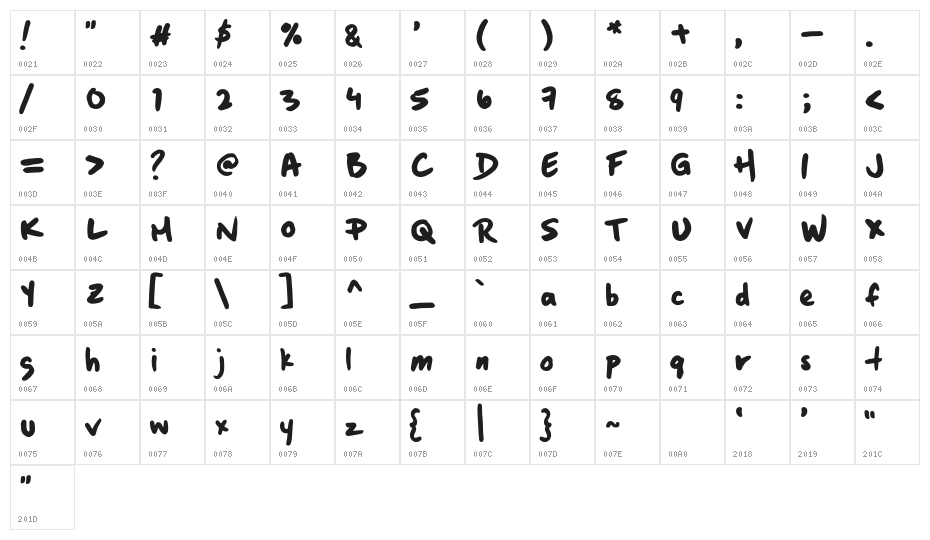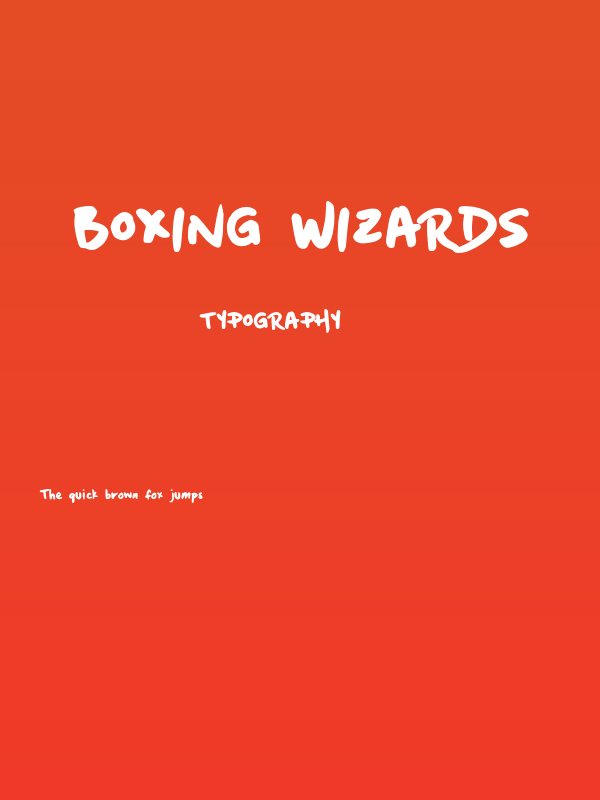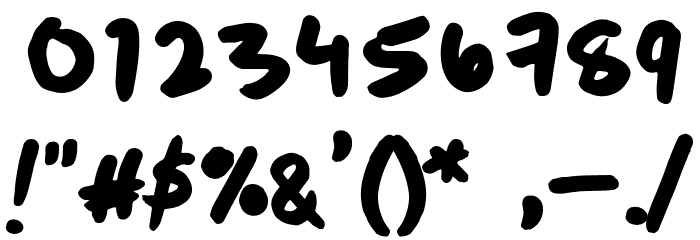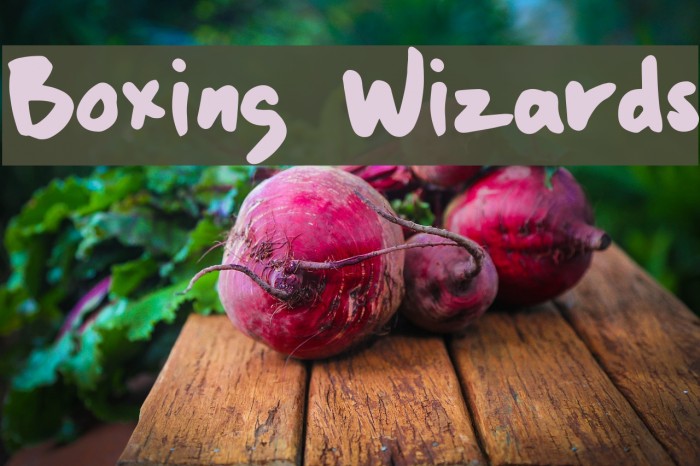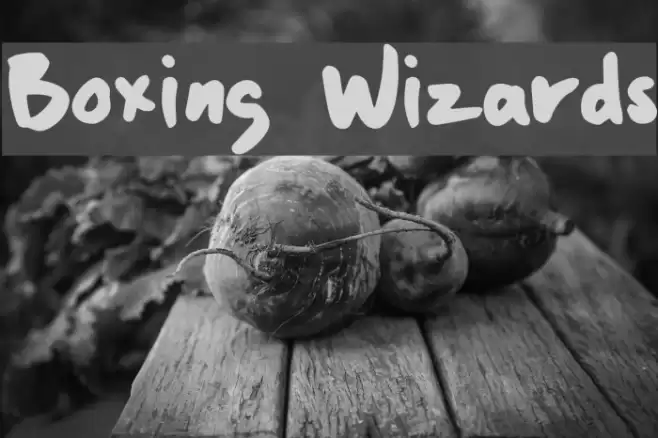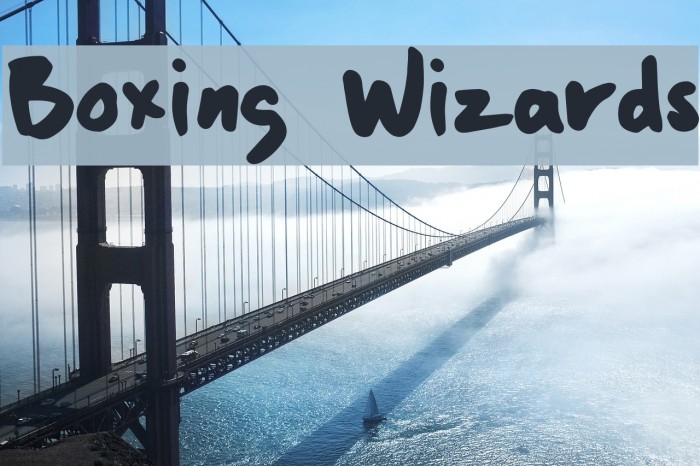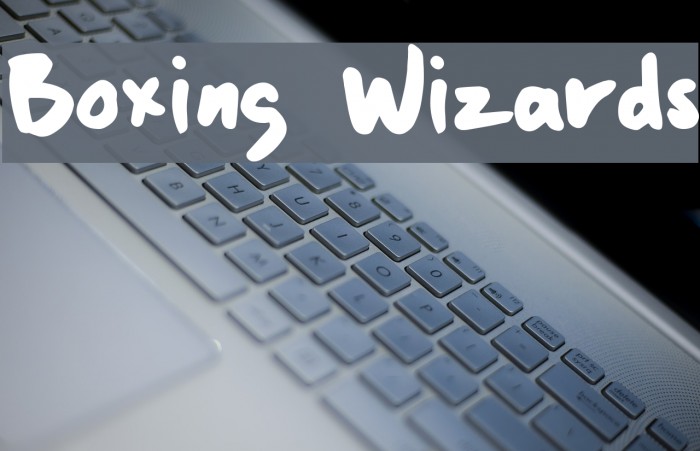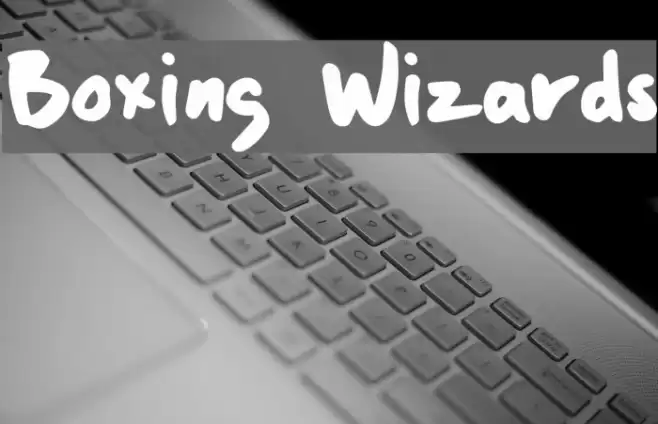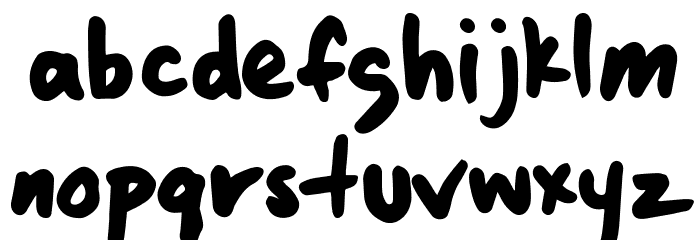
Boxing Wizards Font
Boxing Wizards Description
This font exudes a playful and energetic vibe with its bold, handwritten style. The characters are rounded and slightly irregular, giving them a casual and informal appearance. The uppercase and lowercase letters maintain a consistent thickness, contributing to a cohesive look. The numbers and special characters follow the same design principles, ensuring uniformity across the font. Its bold strokes and dynamic curves make it stand out, while the slightly uneven baseline adds a touch of whimsy. This font is perfect for projects that require a fun and approachable feel.
| Overall Style | Playful |
| Use Case | Headlines, Logos, Informal Text |
| Proposed Projects | Ideal for children's books, playful branding, casual invitations, and social media graphics. |